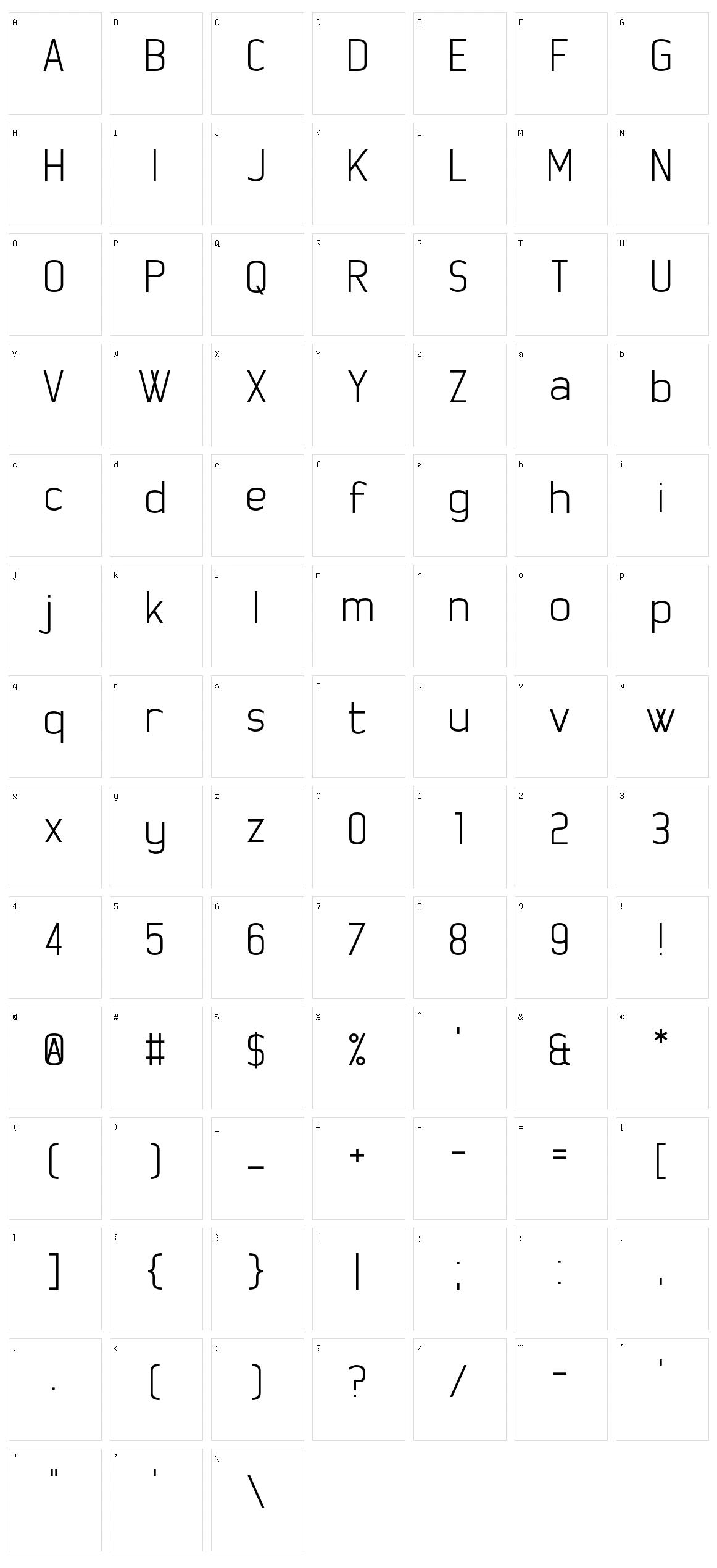
The free font Fosterama is carefully designed by Chequered Ink, showcasing a thoughtful balance of creativity and usability and falls under the Sans serif font style. When you download the ZIP file, it contains only 13.95 KB of font files, making it lightweight and quick to download. Please review the license details below to understand permitted usage and distribution rights. If license information is not available, we recommend using this font for personal projects only or contacting the author directly for commercial usage permissions.